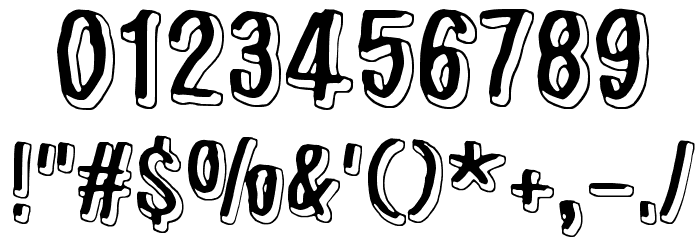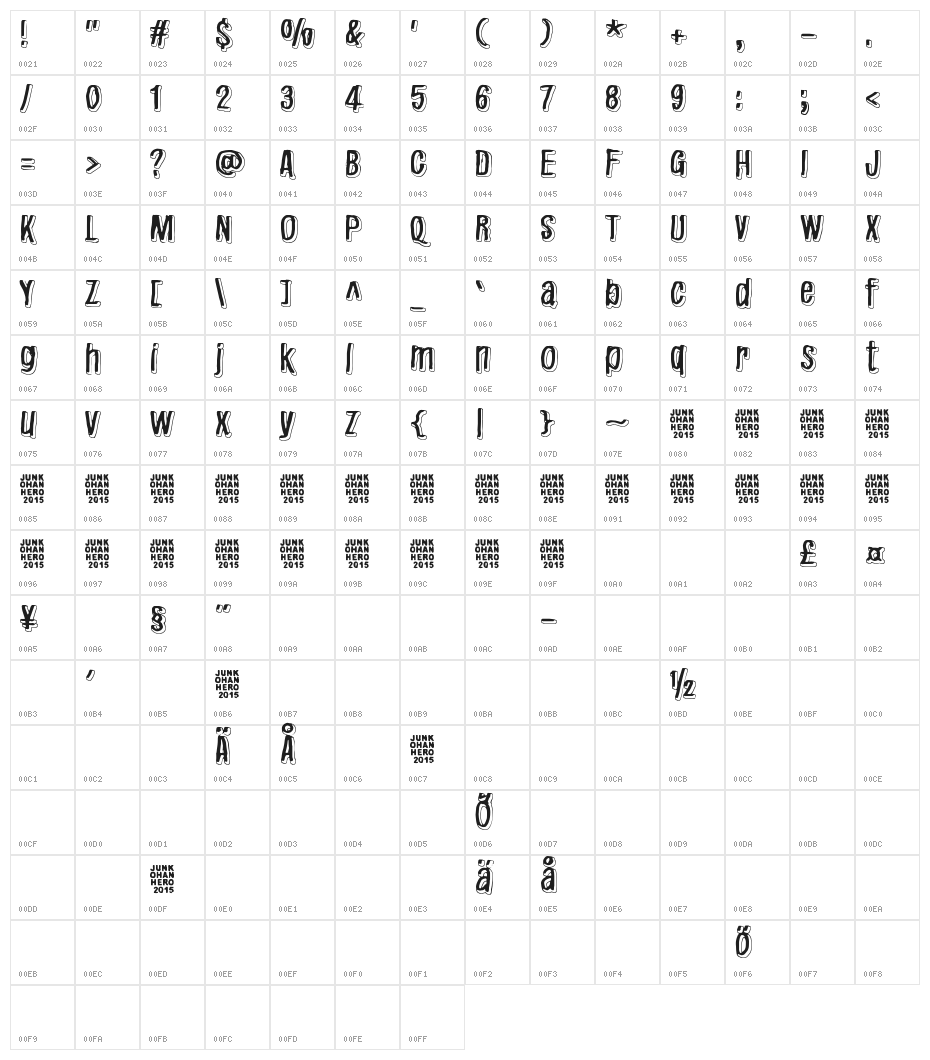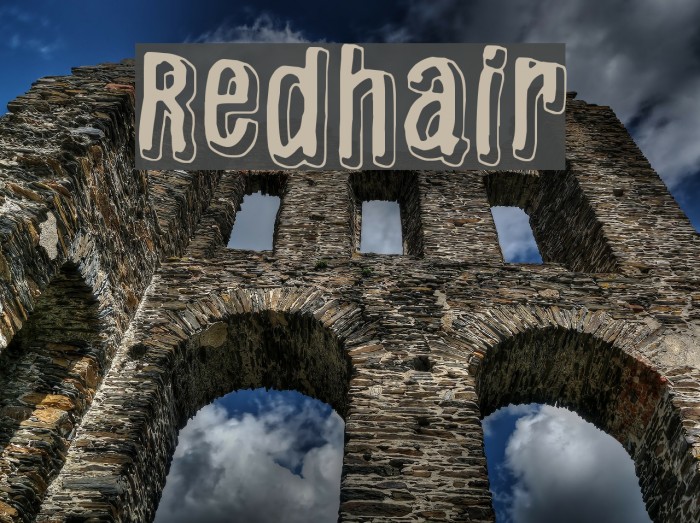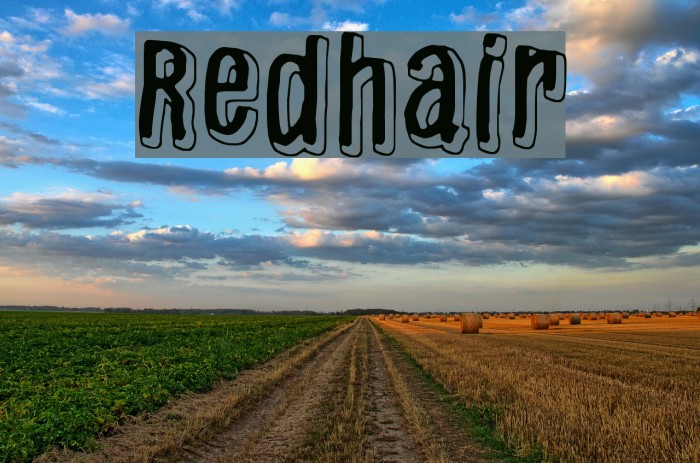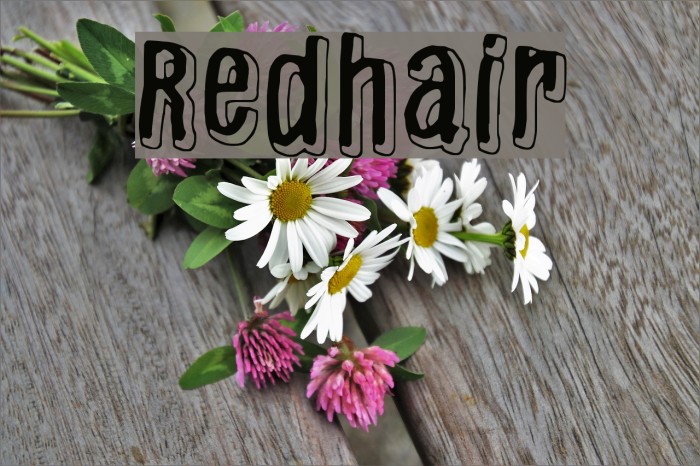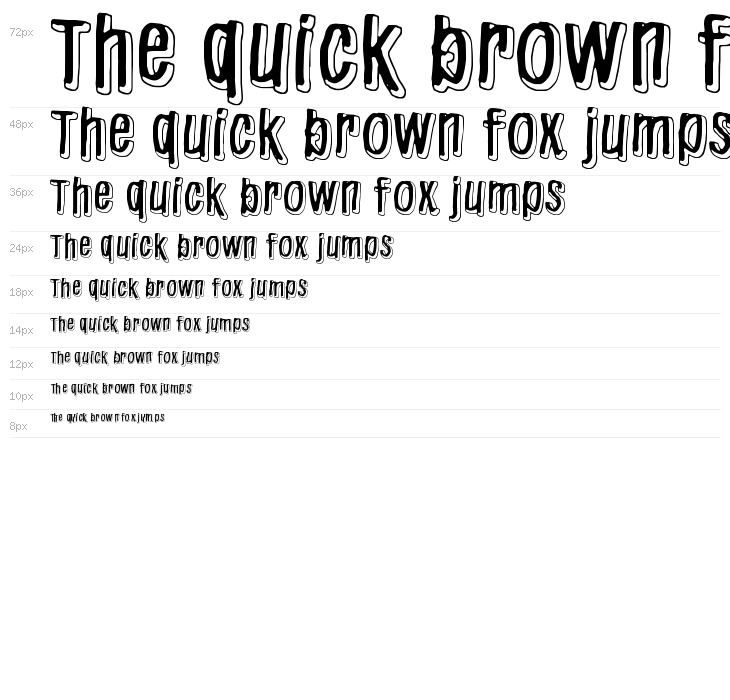
Redhair Font
Redhair Description
This font features a playful, hand-drawn style with bold, uneven strokes that give it a lively and energetic appearance. The letters are outlined with a thick black border, creating a striking contrast against the white interior. Each character has a slightly irregular shape, adding to the whimsical and informal feel. The font includes a full set of uppercase and lowercase letters, numbers, and a variety of special characters, making it versatile for creative projects. Its unique style is perfect for designs that require a fun and eye-catching look.
Overall StylePlayful, Whimsical
Use CaseHeadlines, Posters, Creative projects
Proposed ProjectsIdeal for children's books, posters, greeting cards, and playful branding.